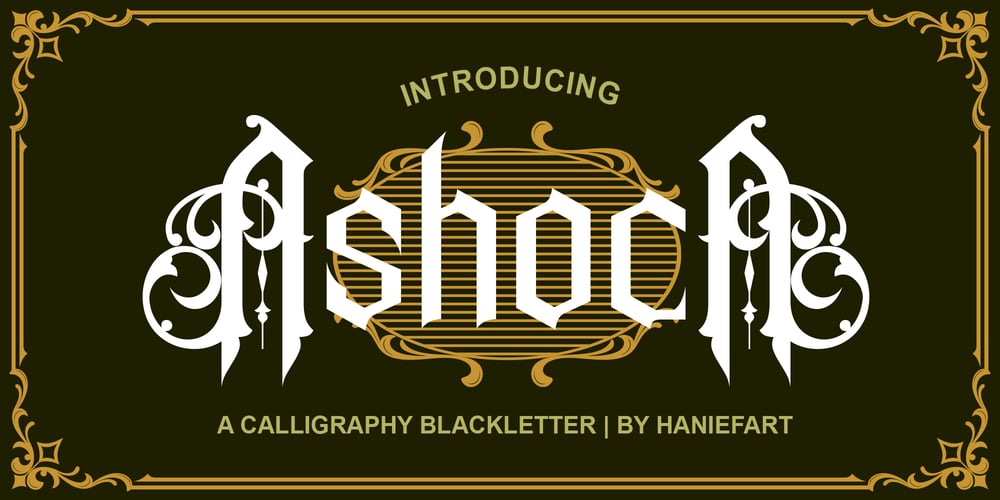
Ashoca Font Family was designed by Hanif Maulazi and published by Haniefart. Ashoca contains 1 styles and family package options. Ashoca is a classic style font made by hand, modified with various ornaments so that it looks attractive, elegant and modern. Ashoca can be used for company brands, business brands, logos, movie titles, drink bottles and many others.